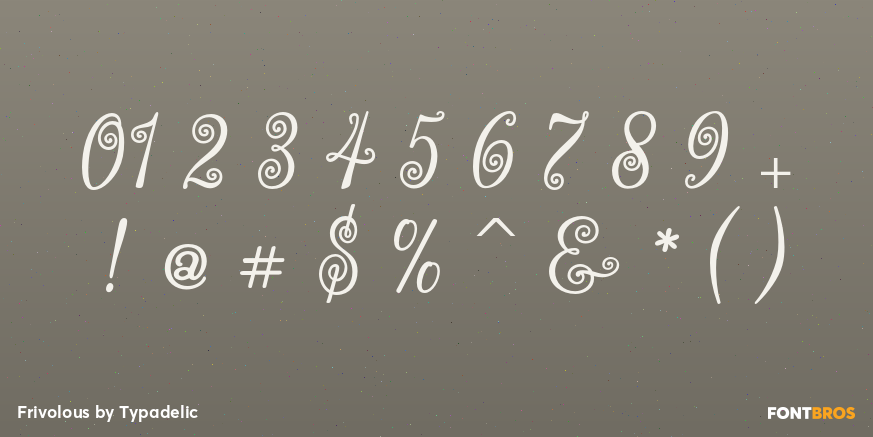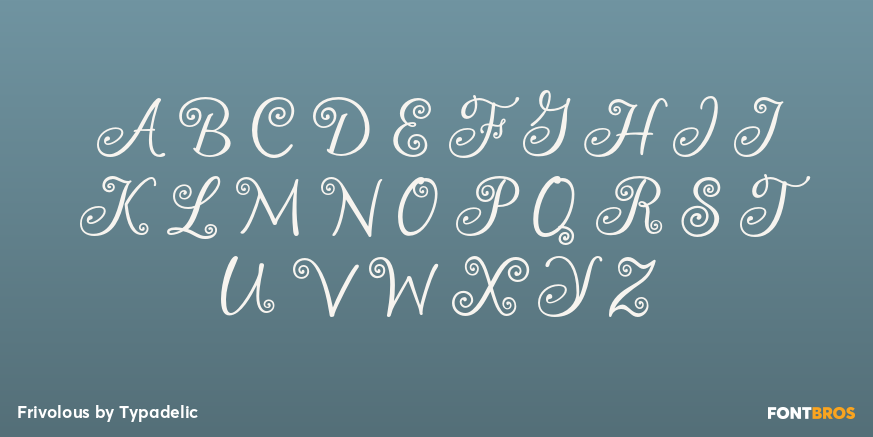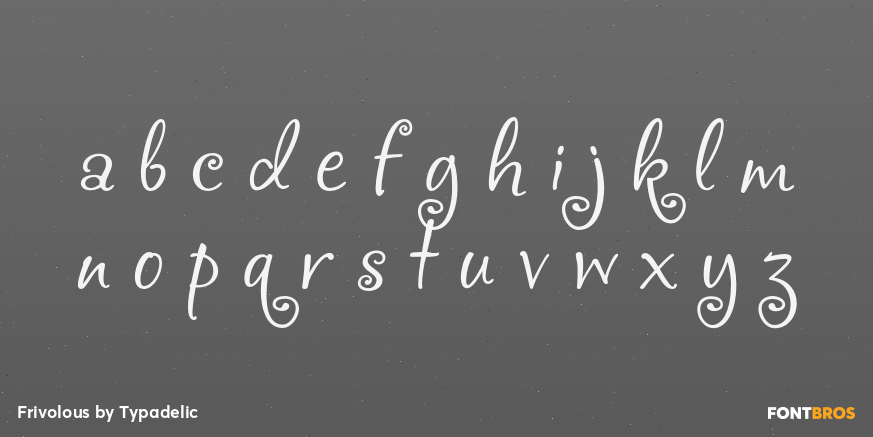
Frivolous
Font Family by Typadelic
Frivolous features an informal style with lots of flourishes and swirls that give it a charming and spontaneous handwritten quality.